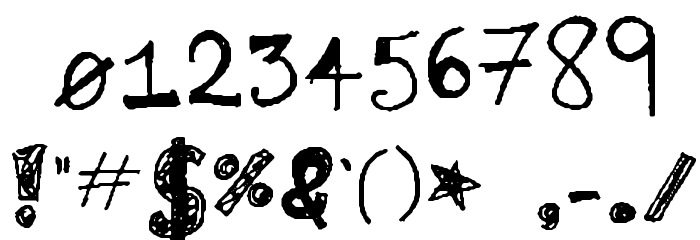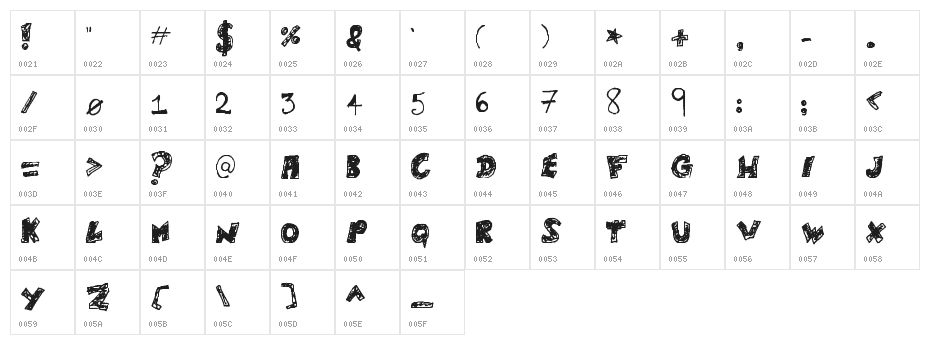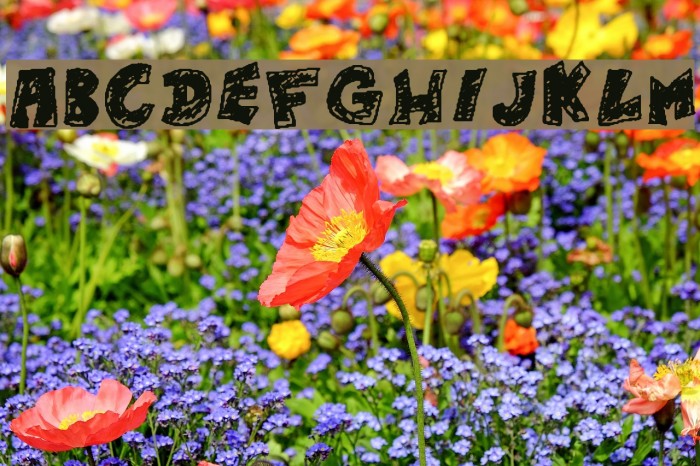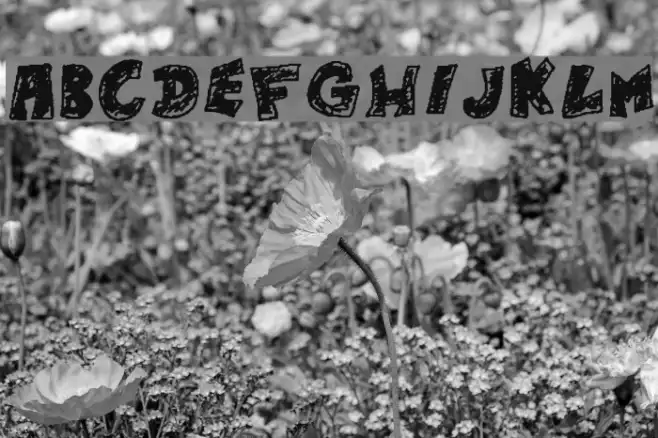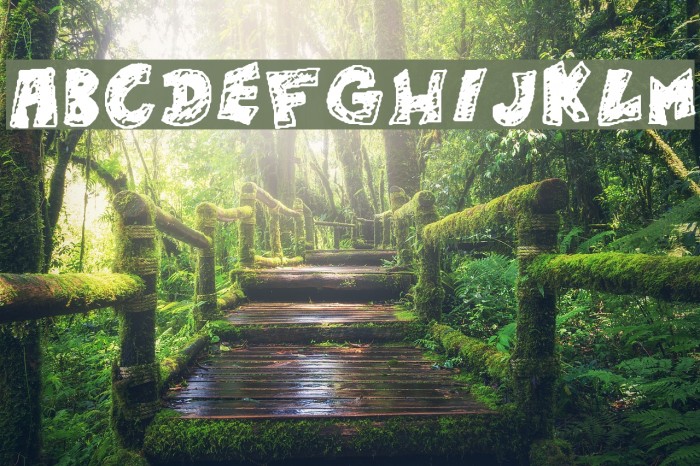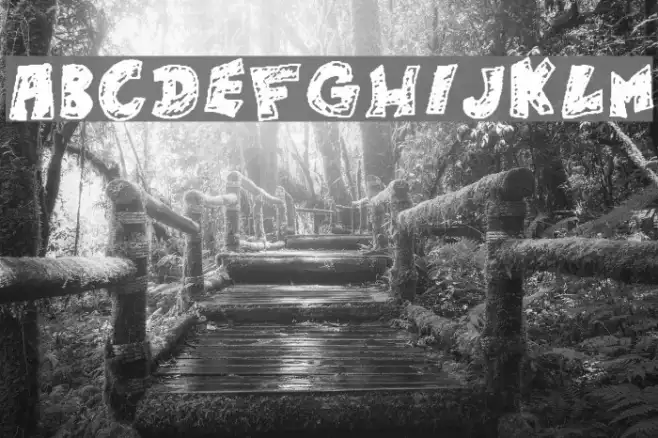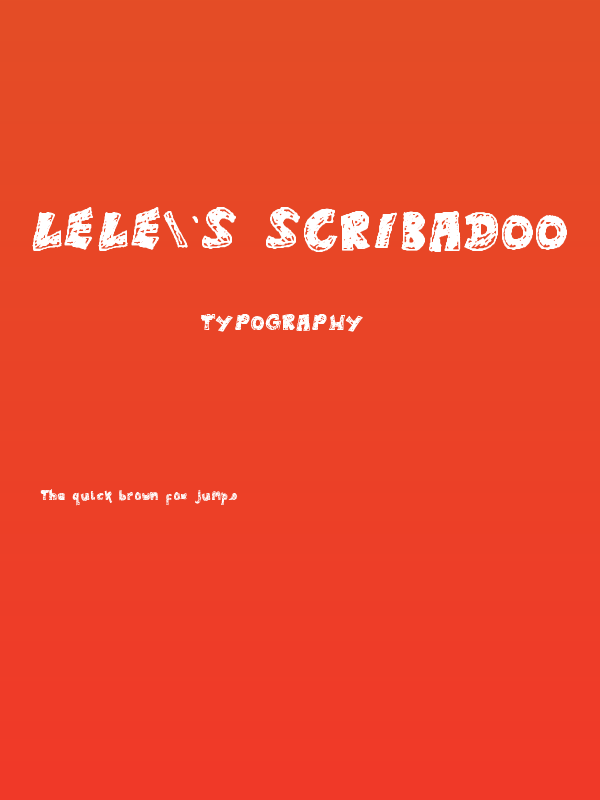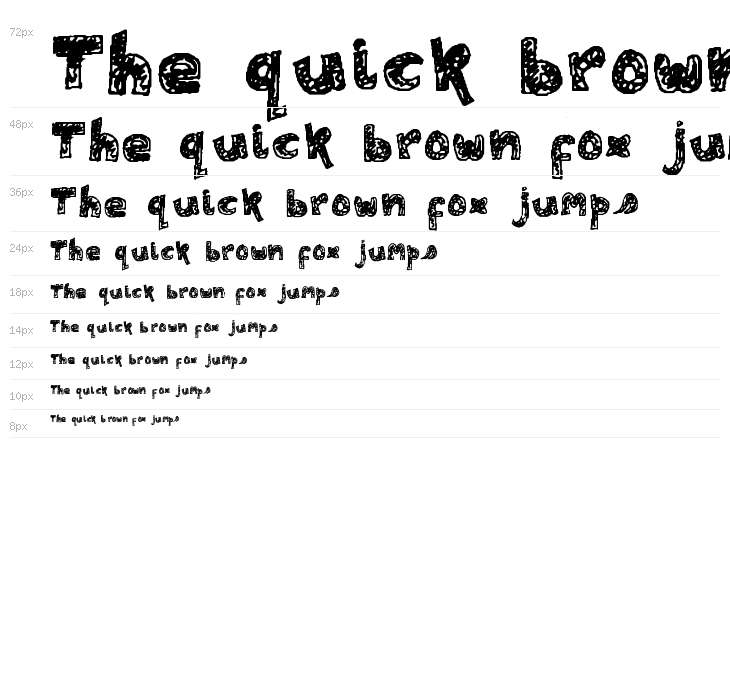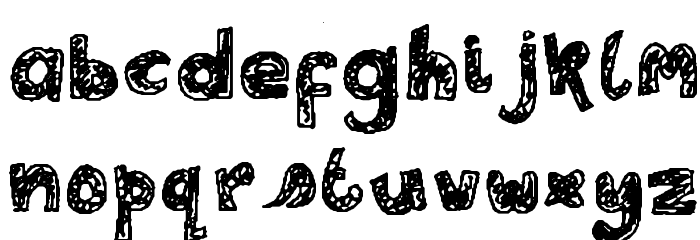
Lele's scribadoo Font
Lele's scribadoo Description
This playful and whimsical font features a hand-drawn, doodle-like style with irregular shapes and a textured fill that resembles scribbles or sketches. Each character has a unique, artistic flair, making it stand out with its bold and creative appearance. The letters are slightly uneven, adding to the casual and informal feel of the font. It captures a sense of fun and creativity, perfect for projects that require a touch of personality and artistic expression. The font includes a full set of uppercase and lowercase letters, numbers, and a variety of special characters, all maintaining the same lively and dynamic style.